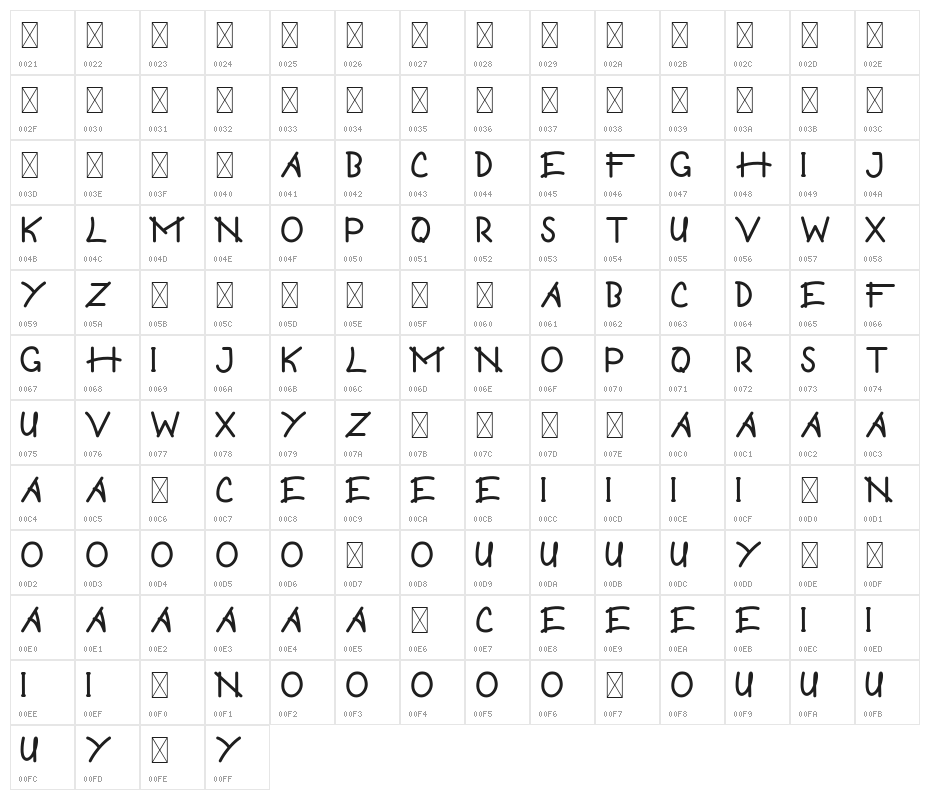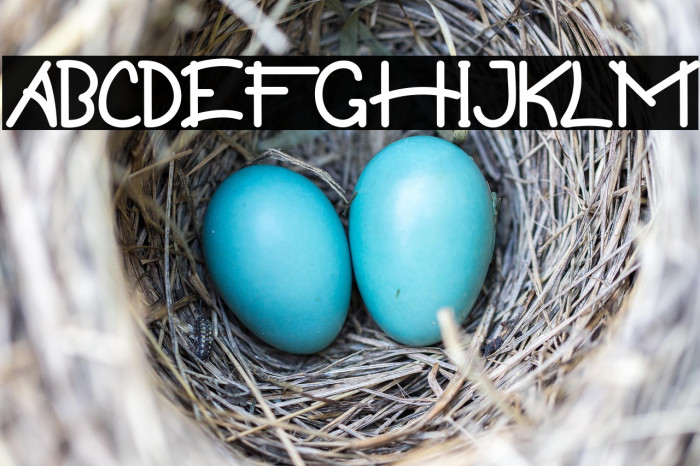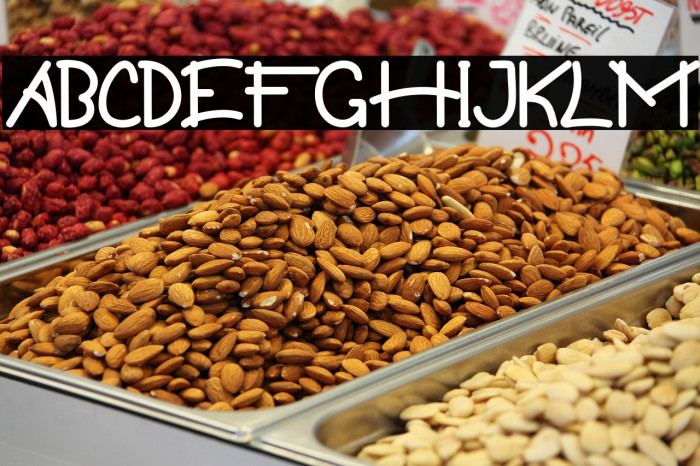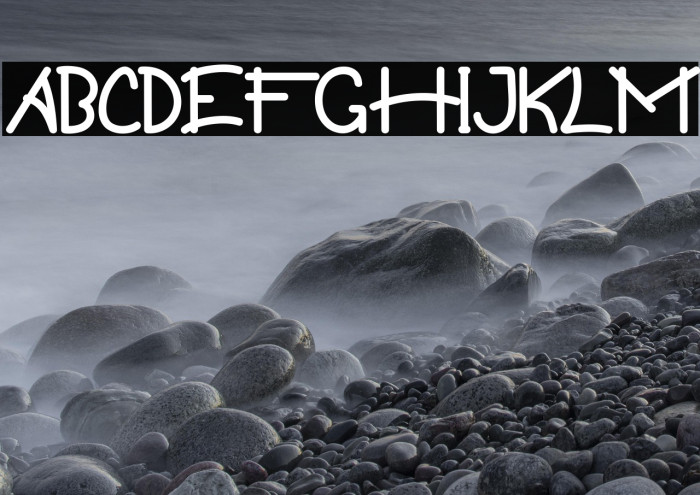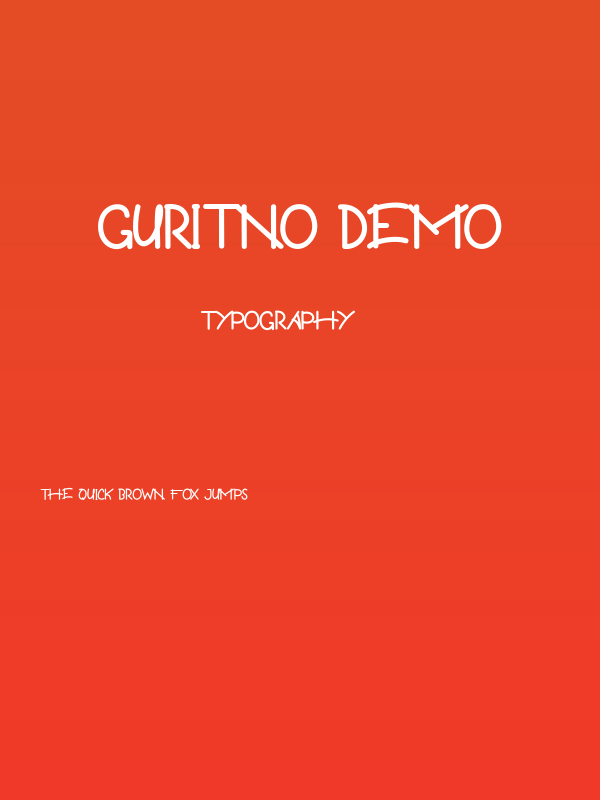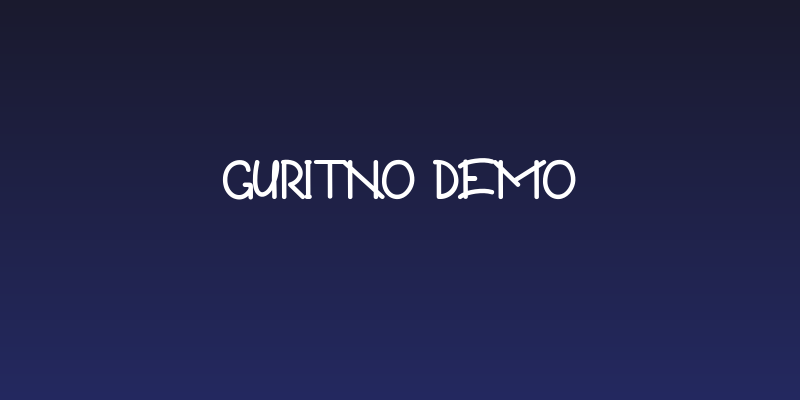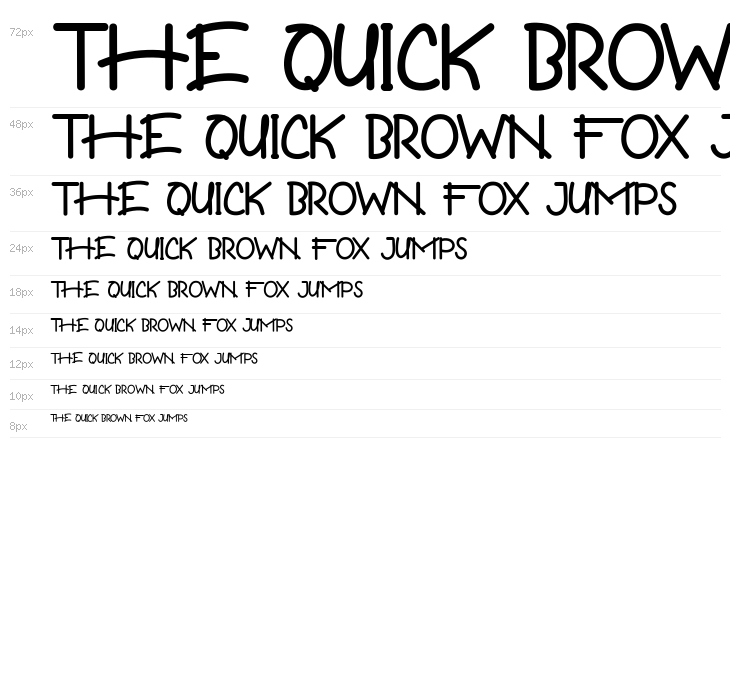
Guritno Demo Font
Guritno Demo Description
This font features a playful and whimsical style, characterized by its hand-drawn appearance. The letters are bold and slightly irregular, giving them a unique and informal look. The strokes are consistent in width, with rounded edges that add to the friendly and approachable feel. The uppercase and lowercase letters maintain a cohesive design, ensuring readability while retaining a distinctive charm. The font's overall aesthetic is casual and artistic, making it suitable for creative projects that require a touch of personality.
| Proposed Projects | Ideal for children's books, greeting cards, playful branding, and creative posters. |